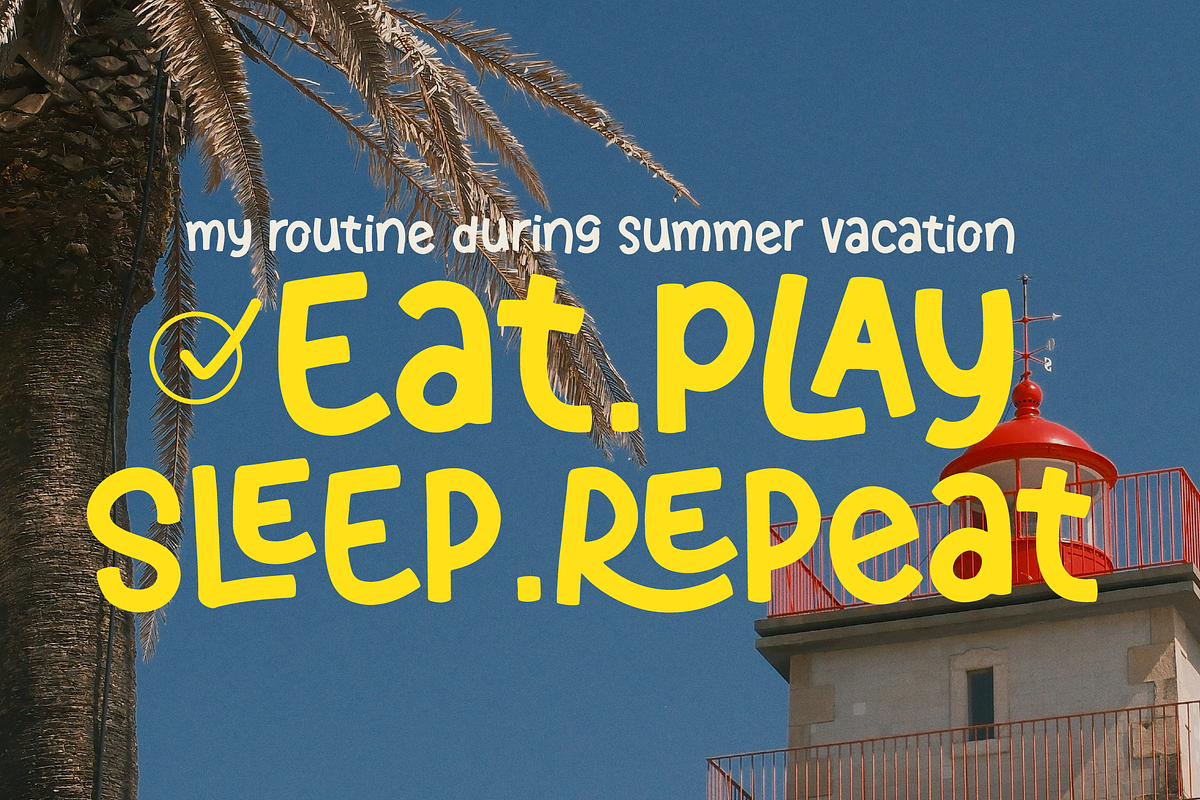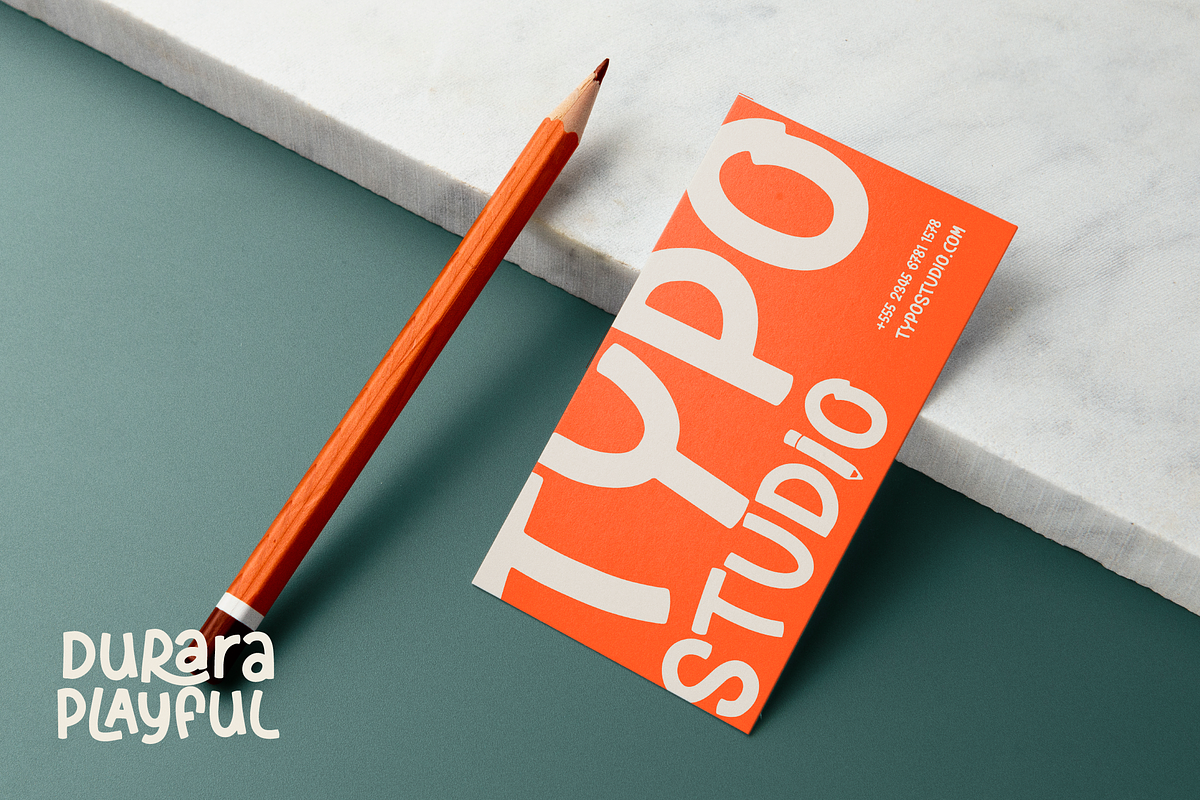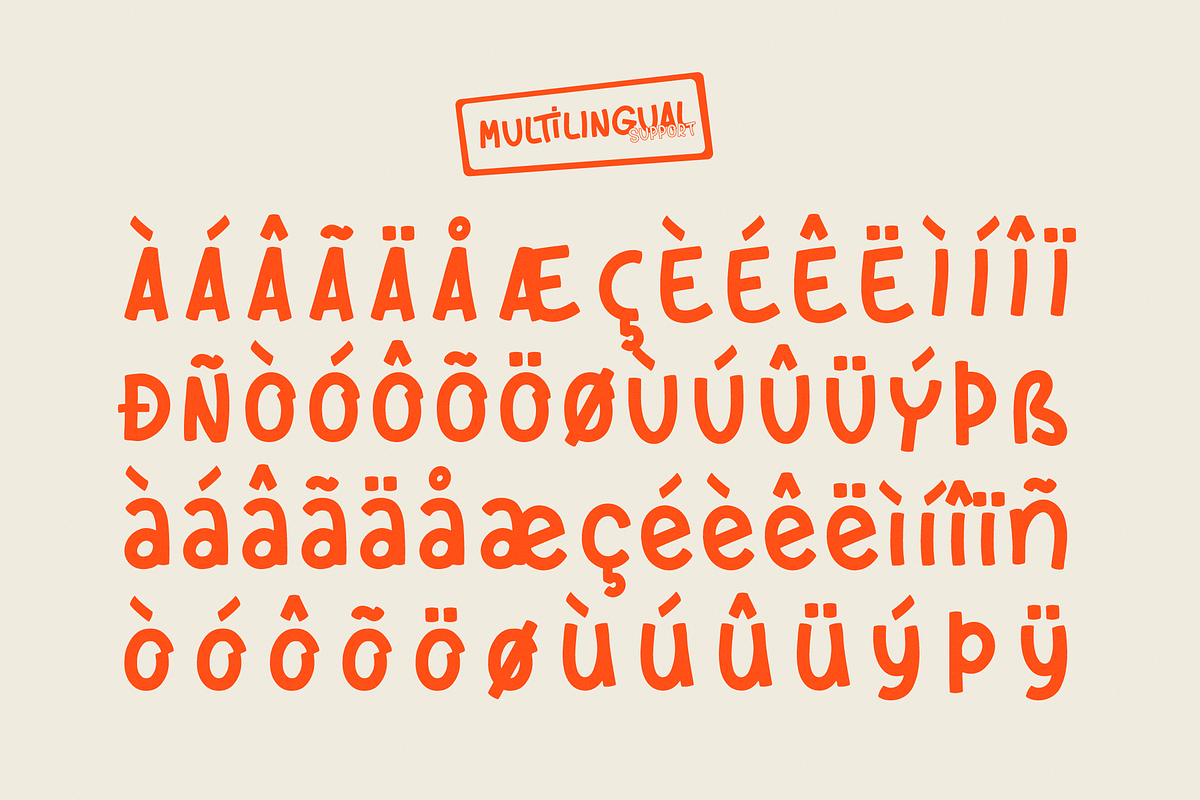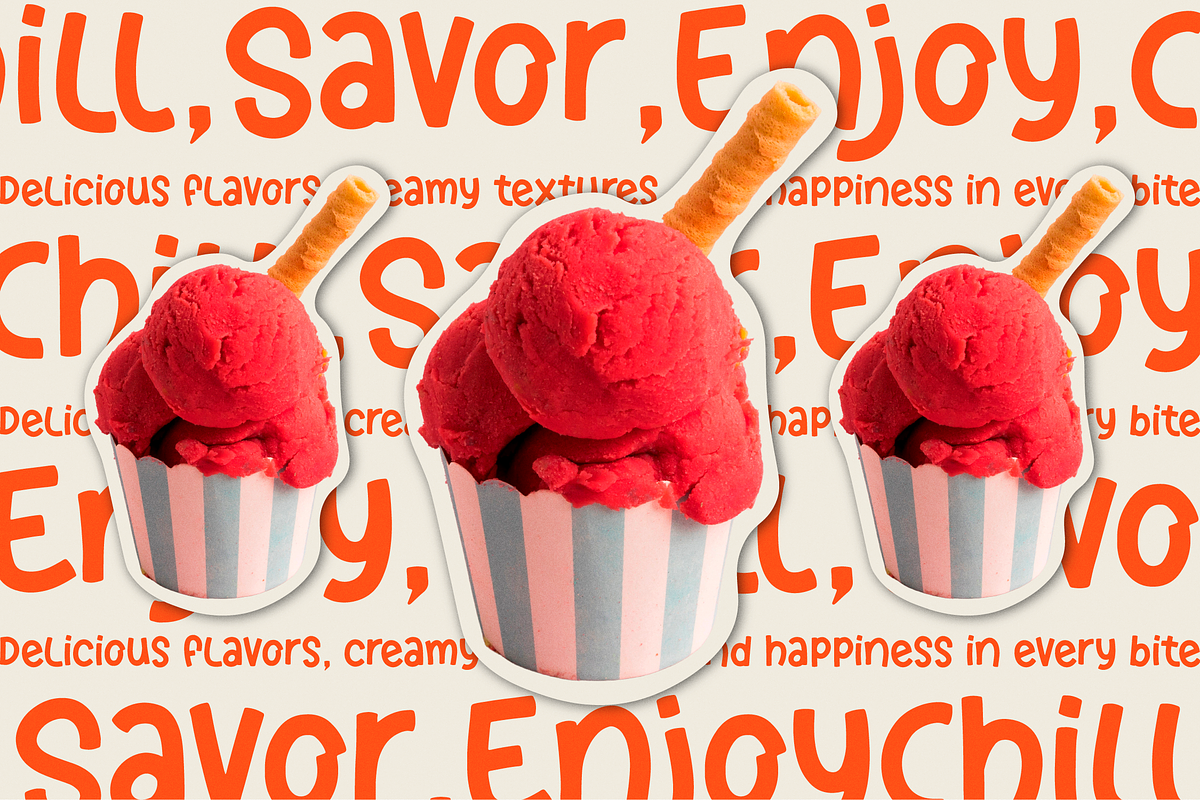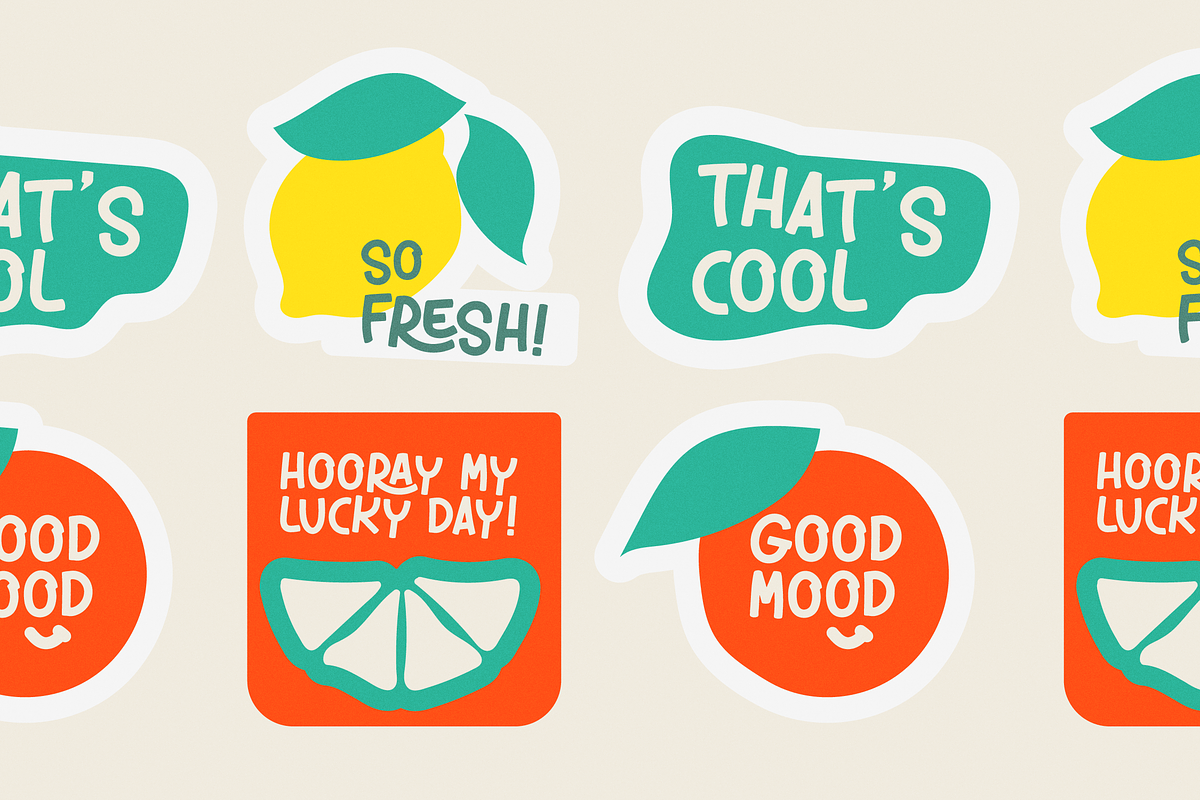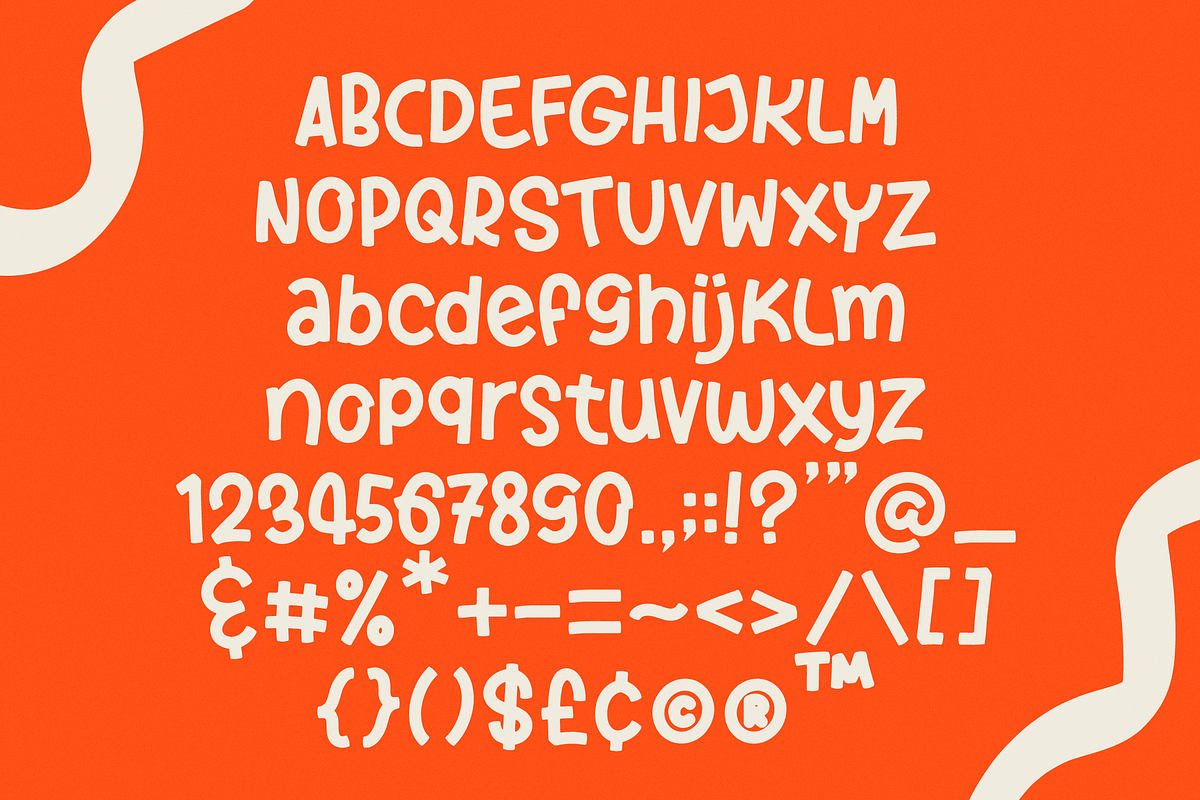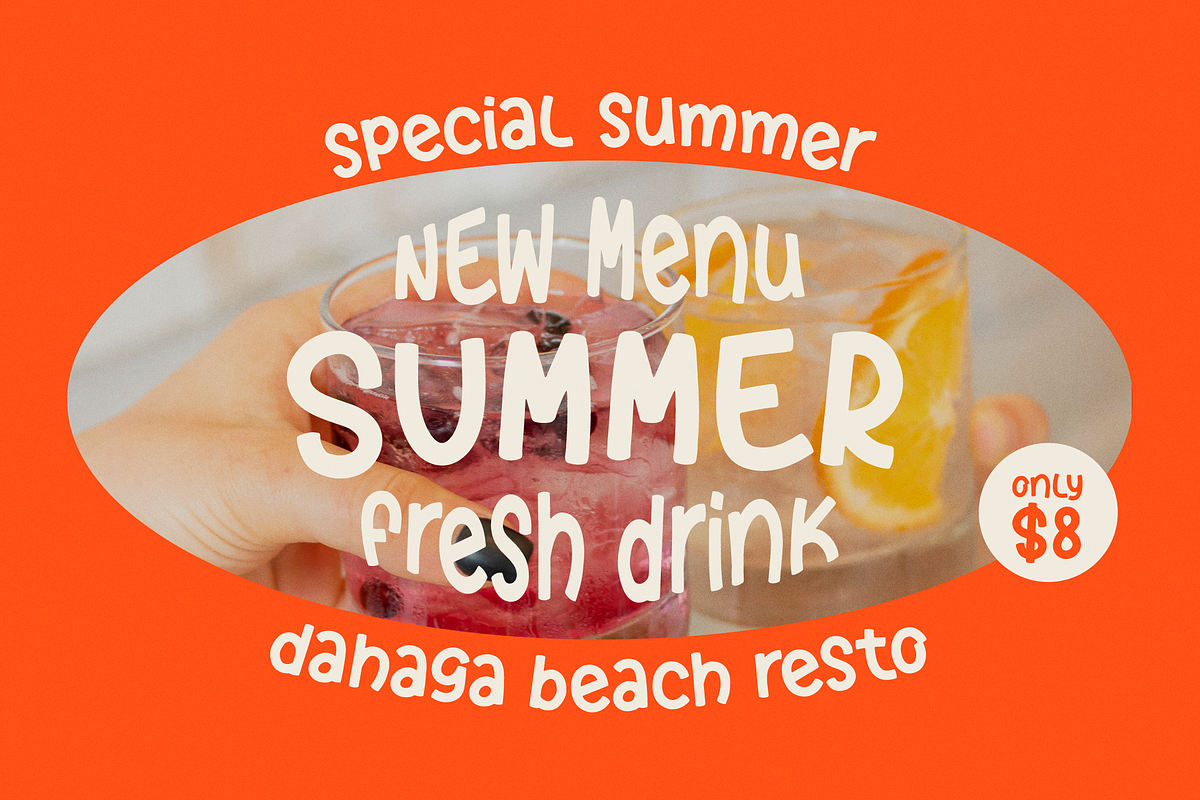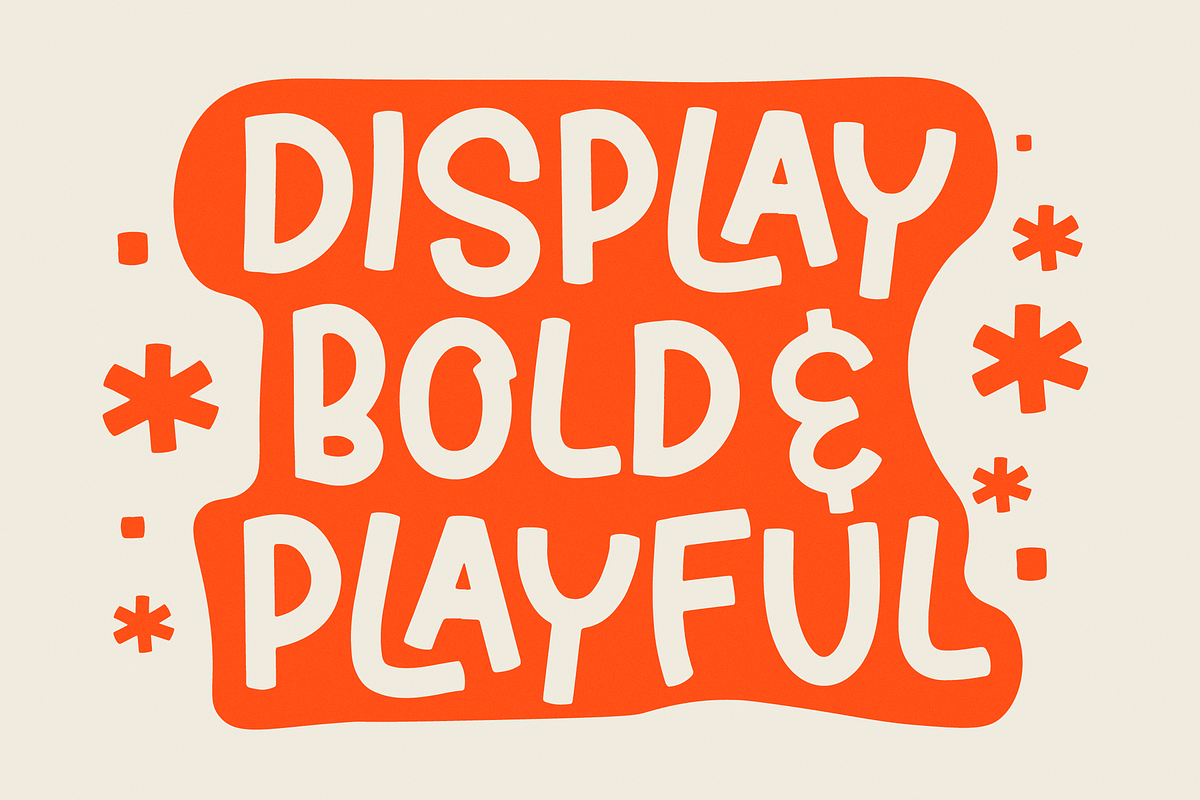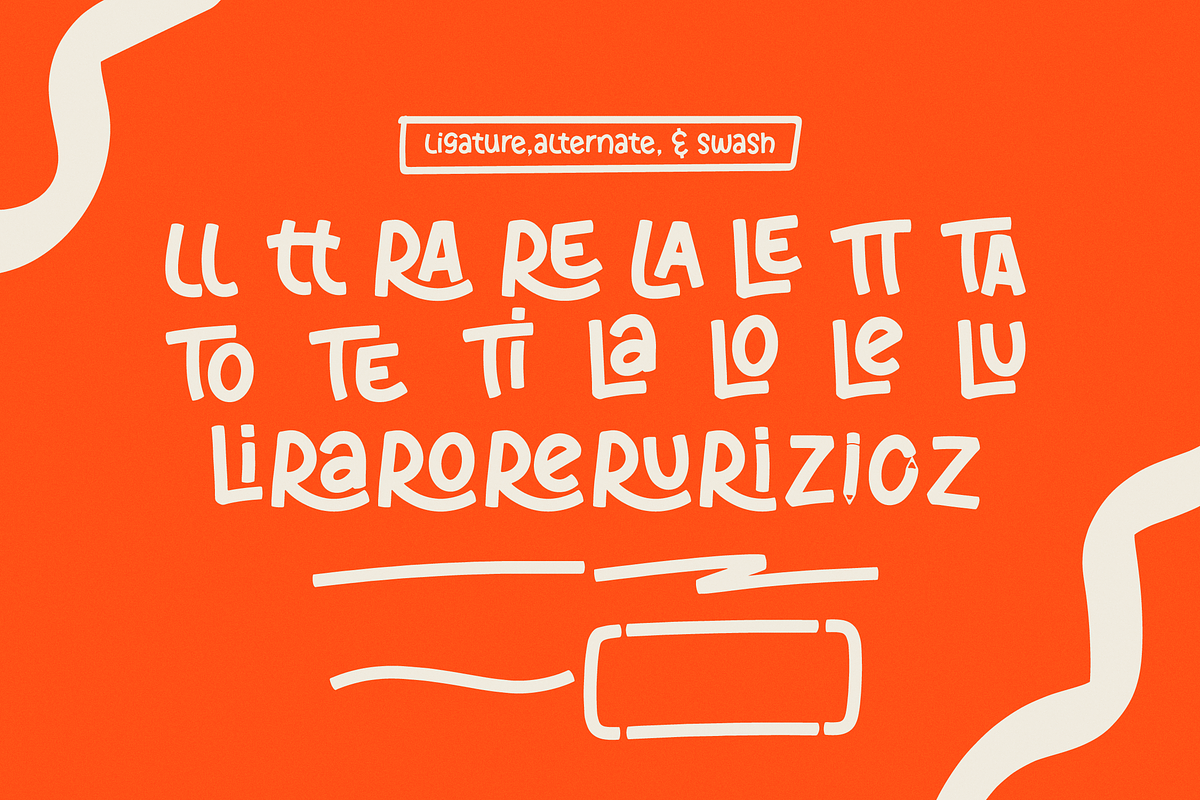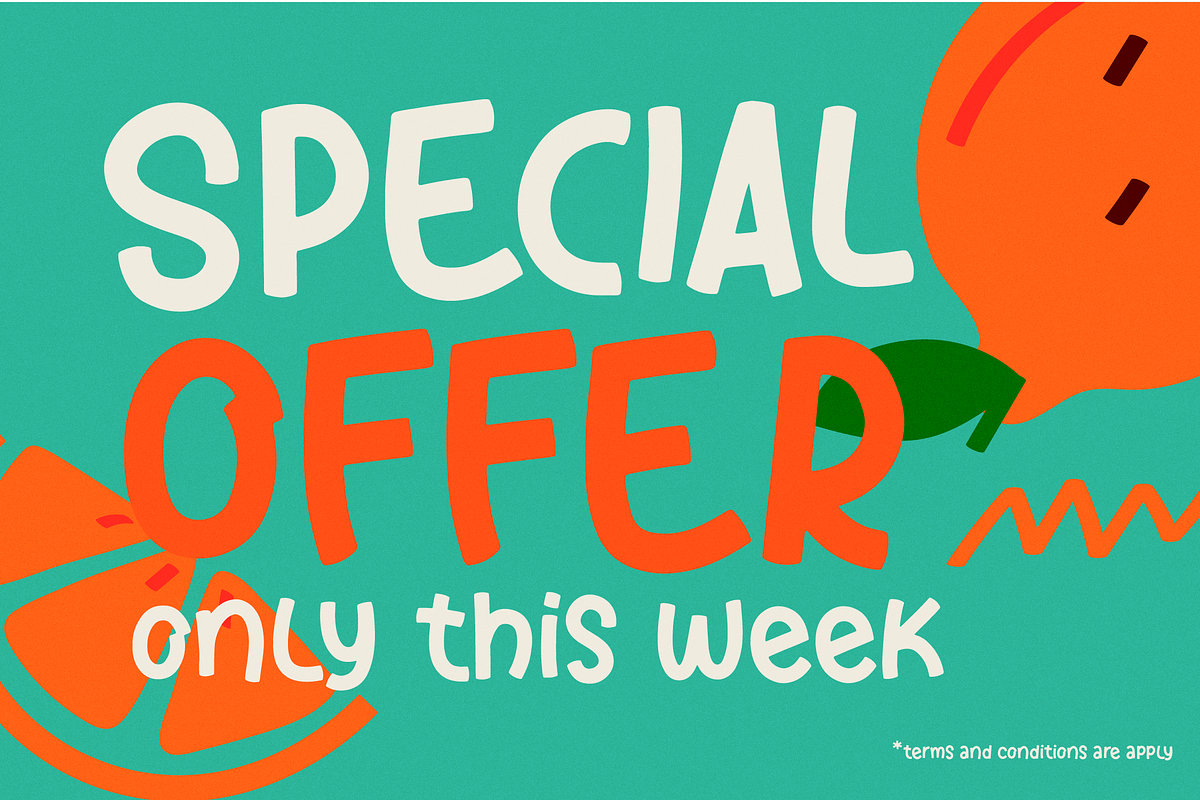
Durara Playful | Handwritten Font
Durara Playful | Handwritten Font, from Denustudios, suitable for any projects such as: logos, branding projects, homeware designs, product packaging, mugs, quotes, posters, shopping bags, t-shirts, book covers, name card, invitation cards, greeting cards, label, photography, watermark, special events, and all your other lovely projects that need a Handwritten Font taste.